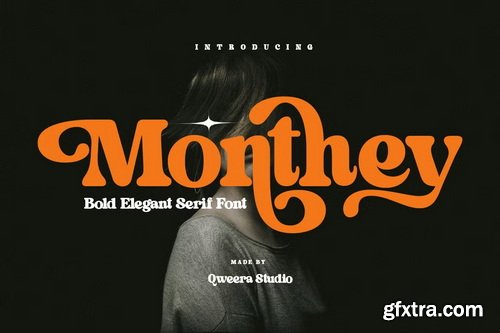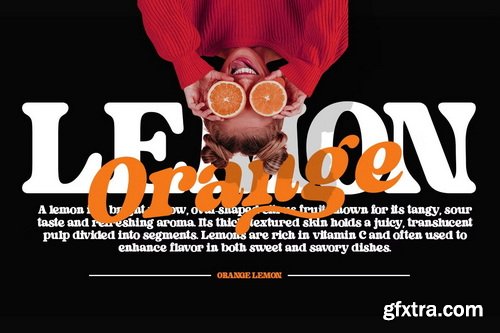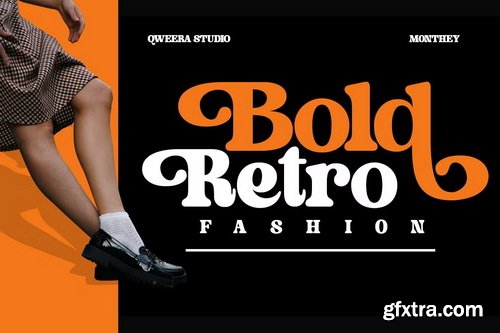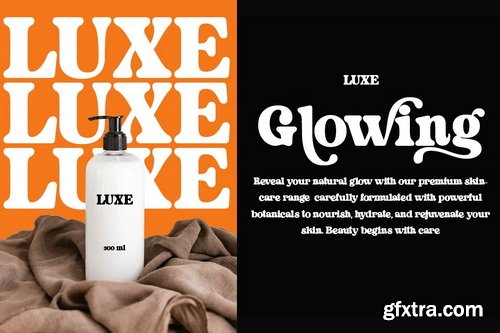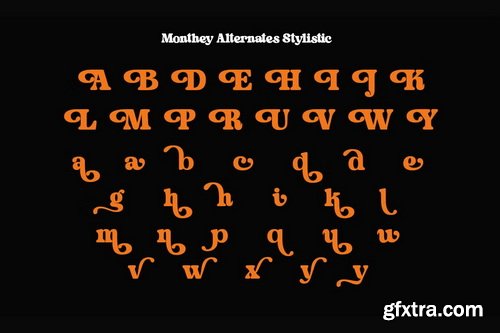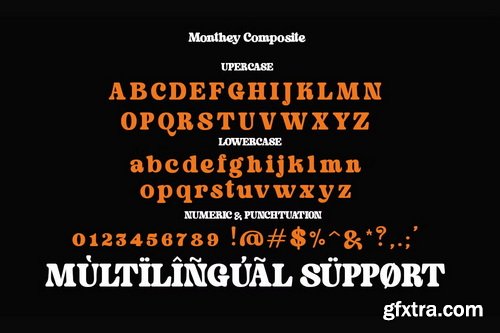
Monthey is a commanding display serif that blends bold confidence with refined elegance. Featuring both regular and italic versions with stylistic alternates and ligatures, this typeface is expertly engineered for luxury branding, high-impact logos, premium packaging, and editorial designs that demand authority with sophistication. With its assertive serif structure and graceful italic counterpart, Monthey delivers unparalleled versatility for brands seeking both power and prestige. The carefully crafted alternates and ligatures enable distinctive typographic expressions with perfect balance.